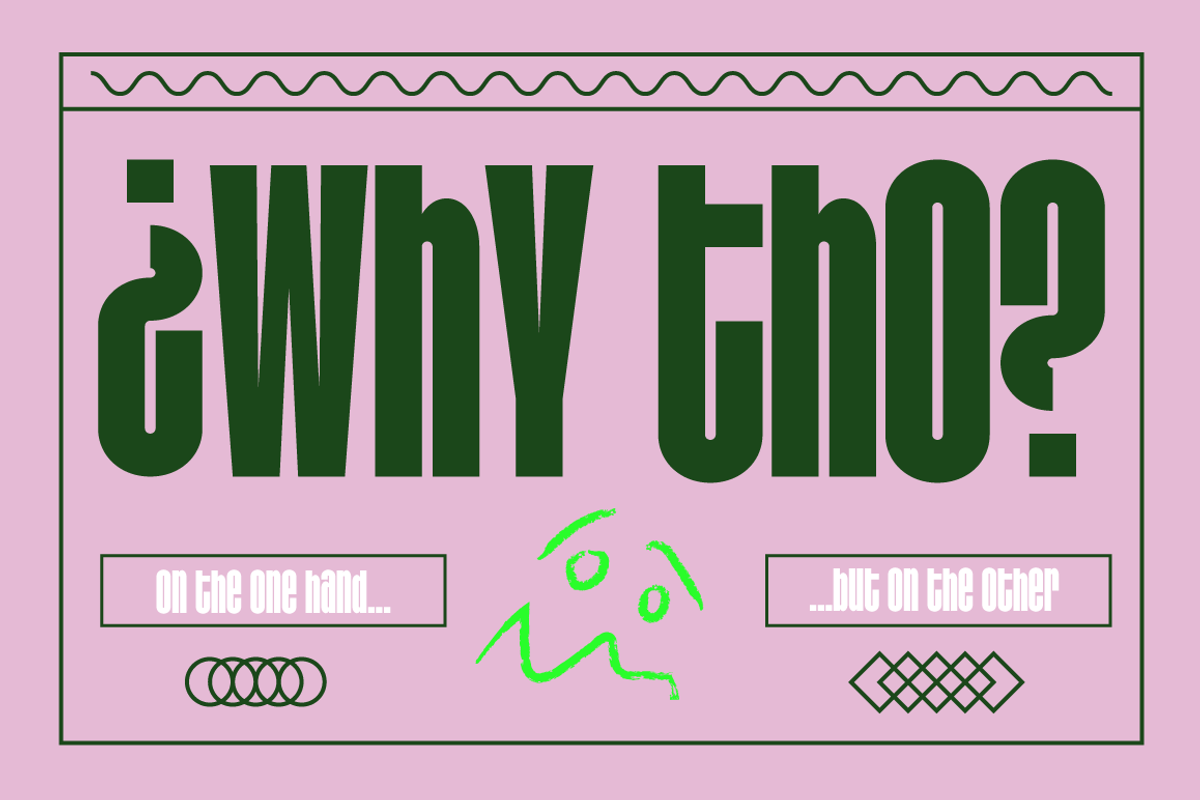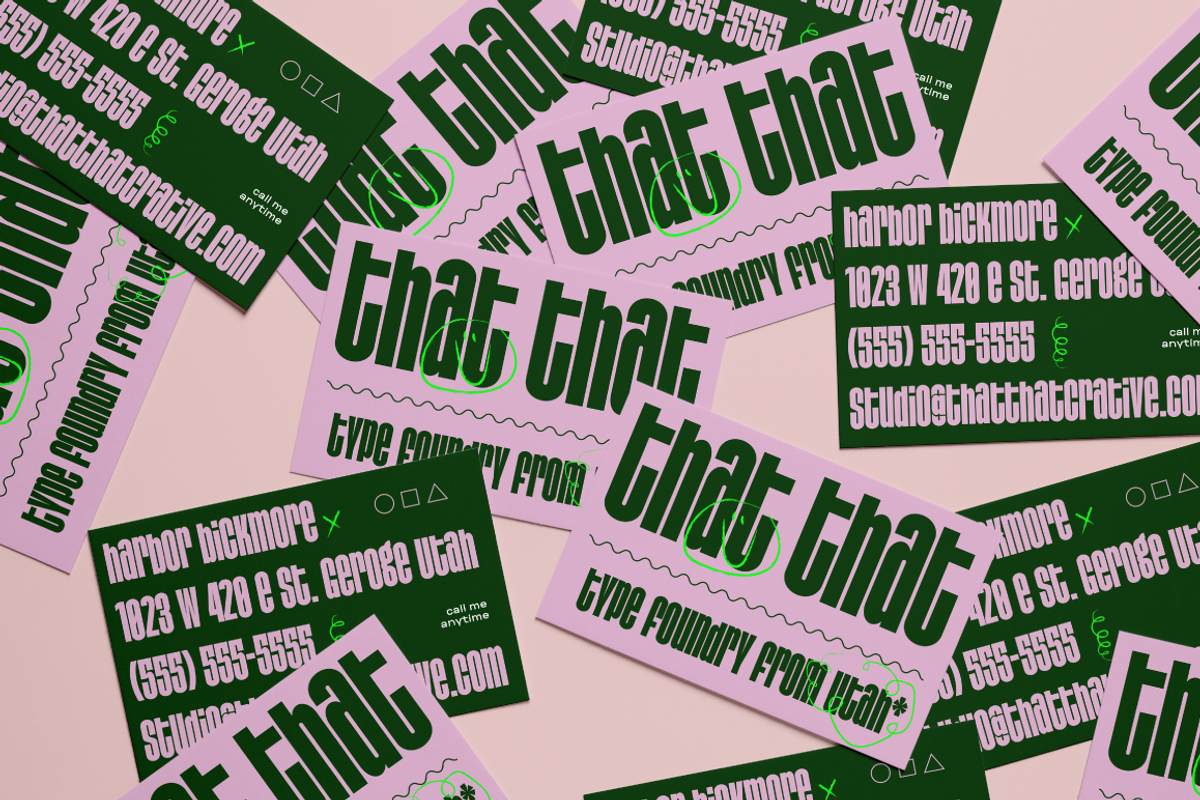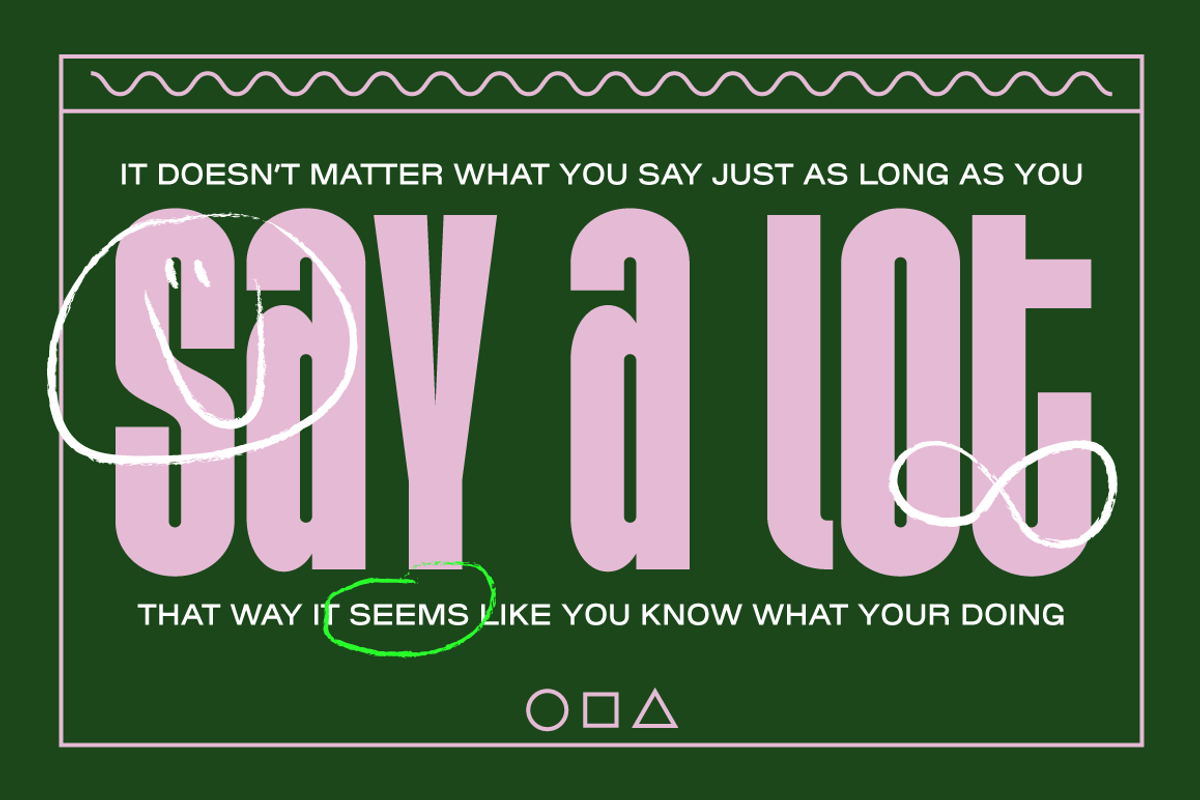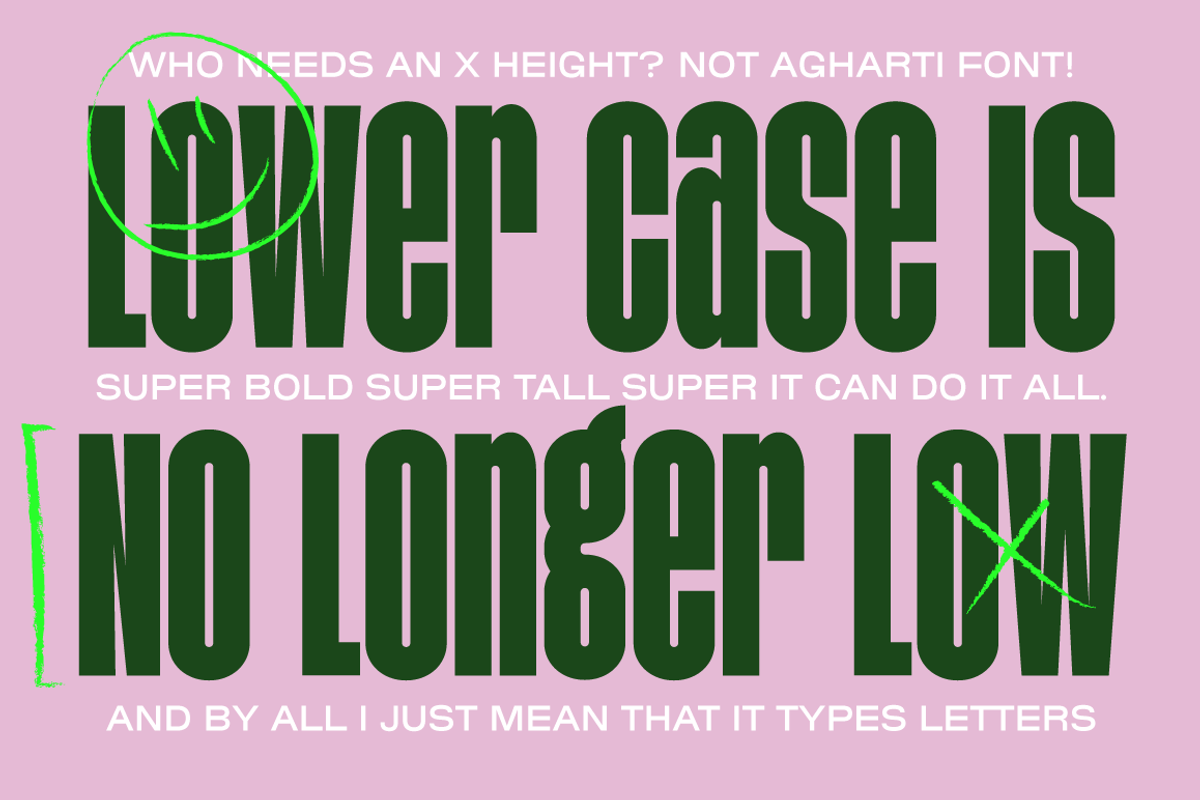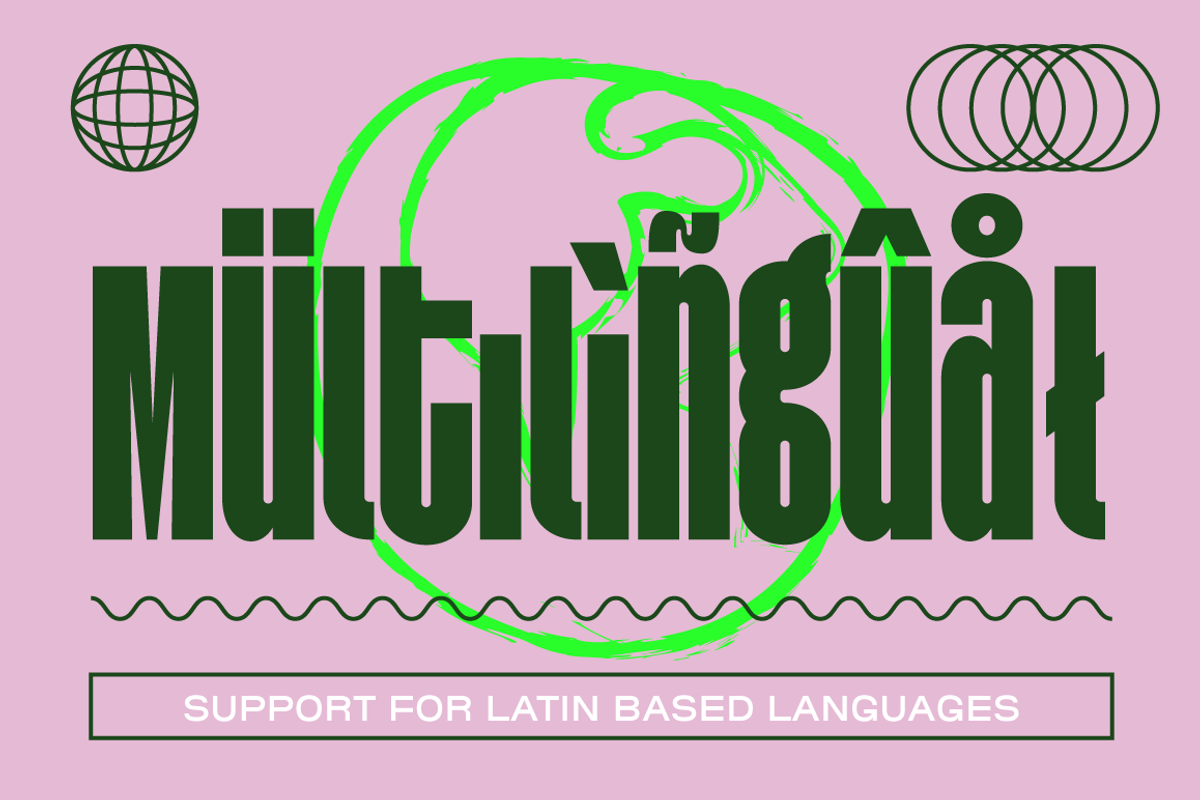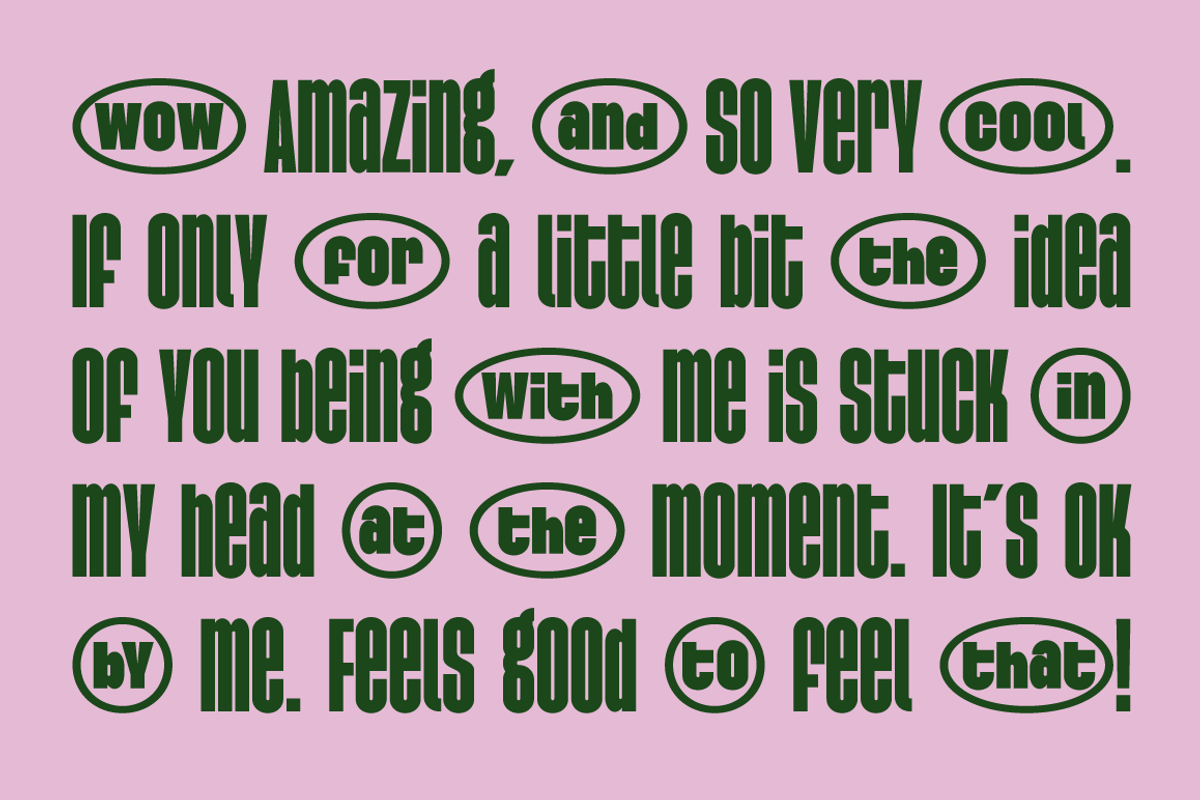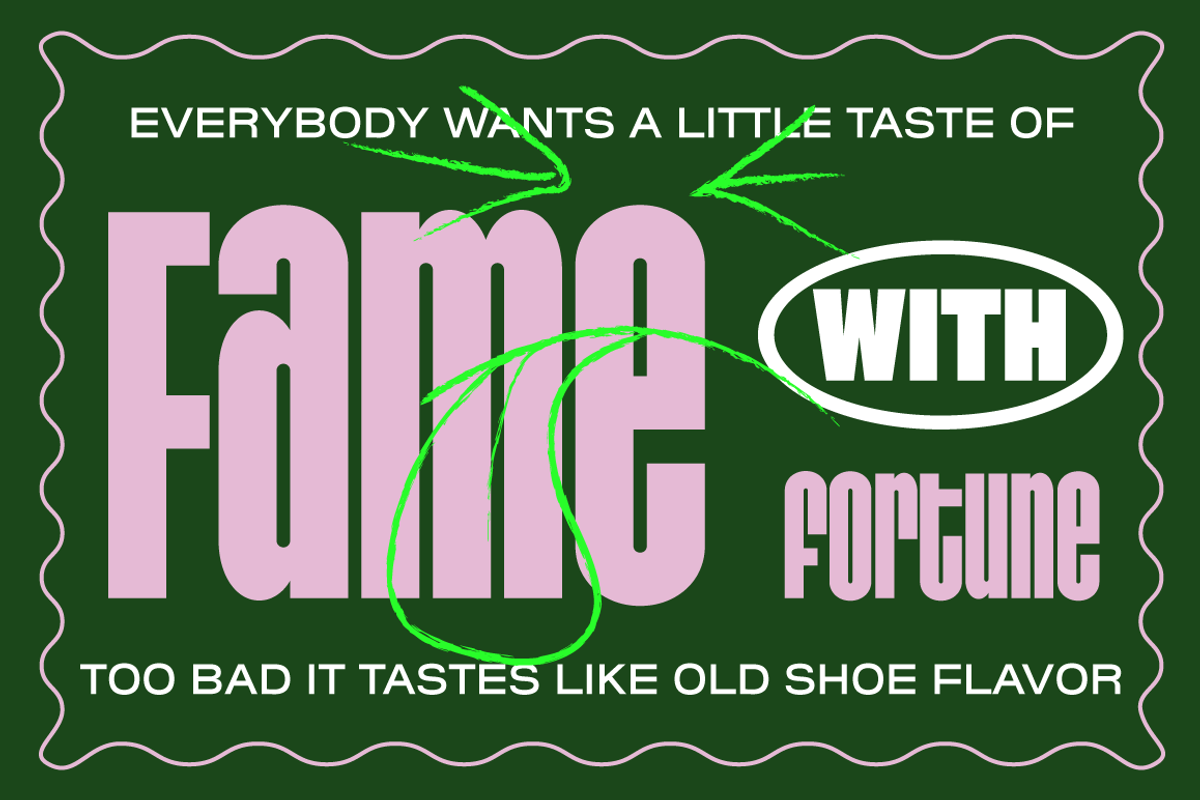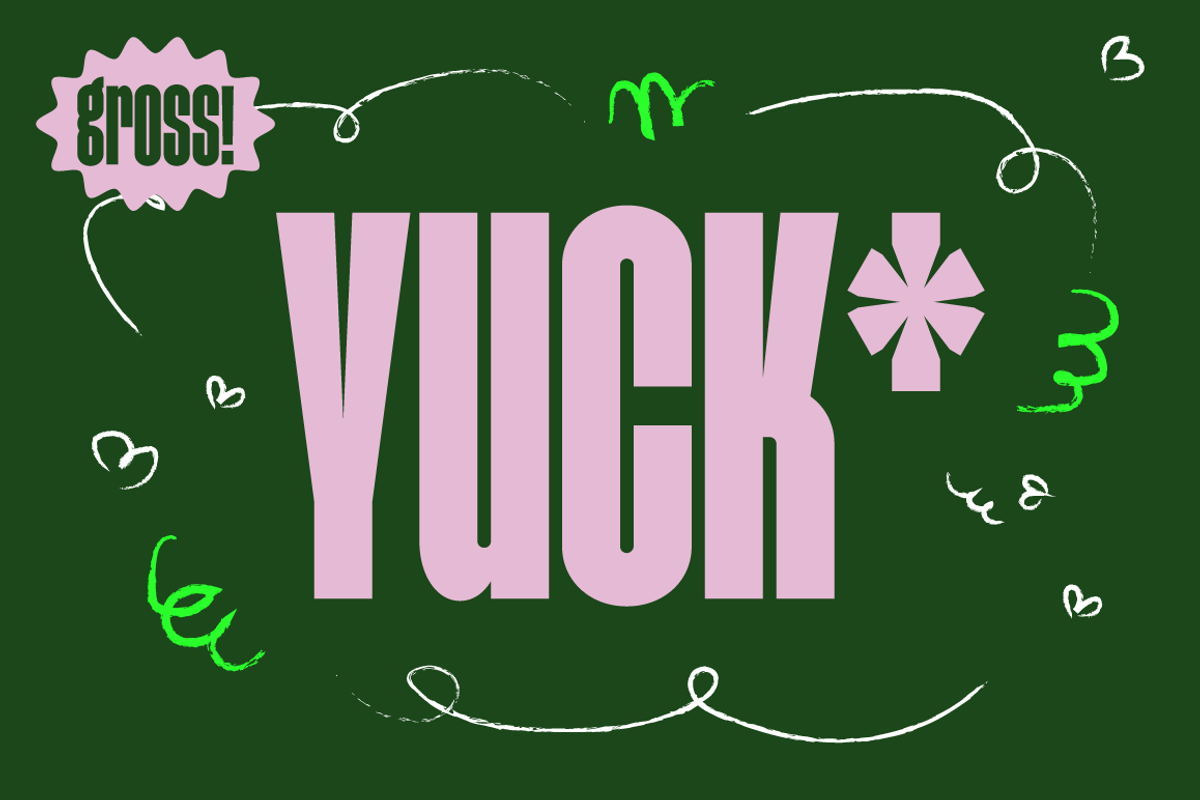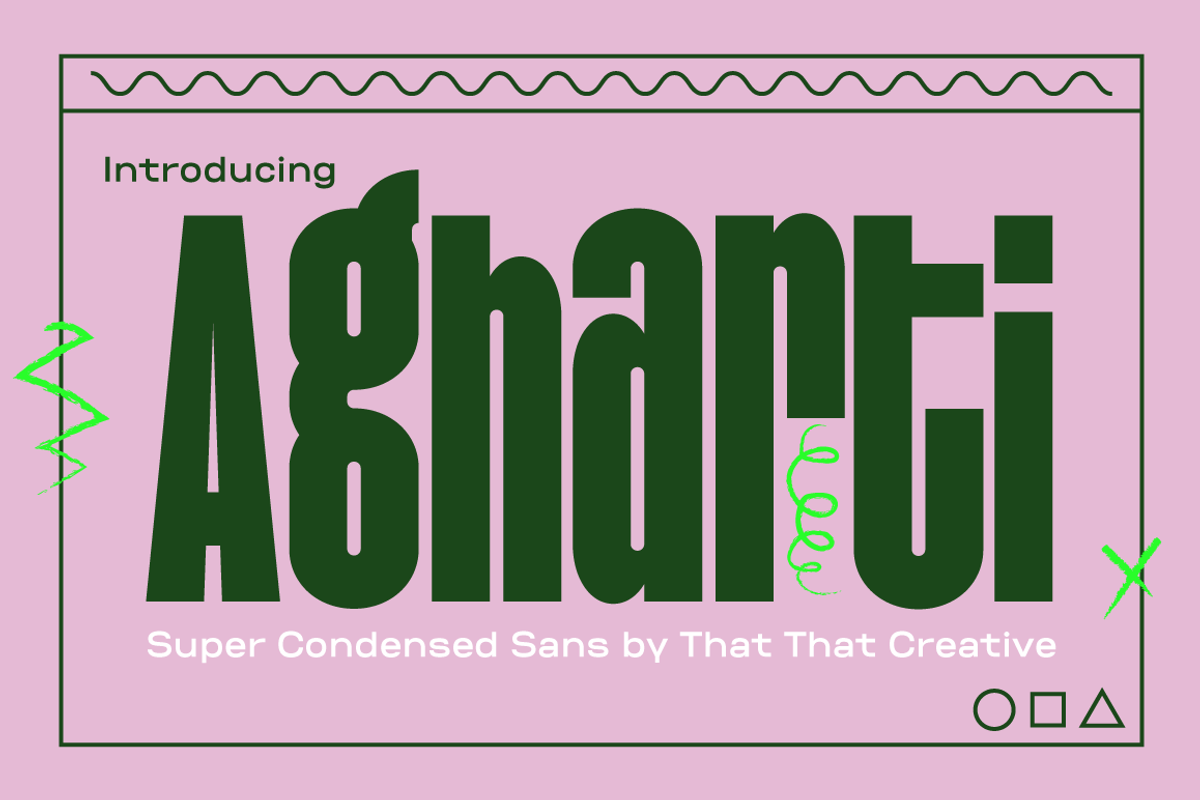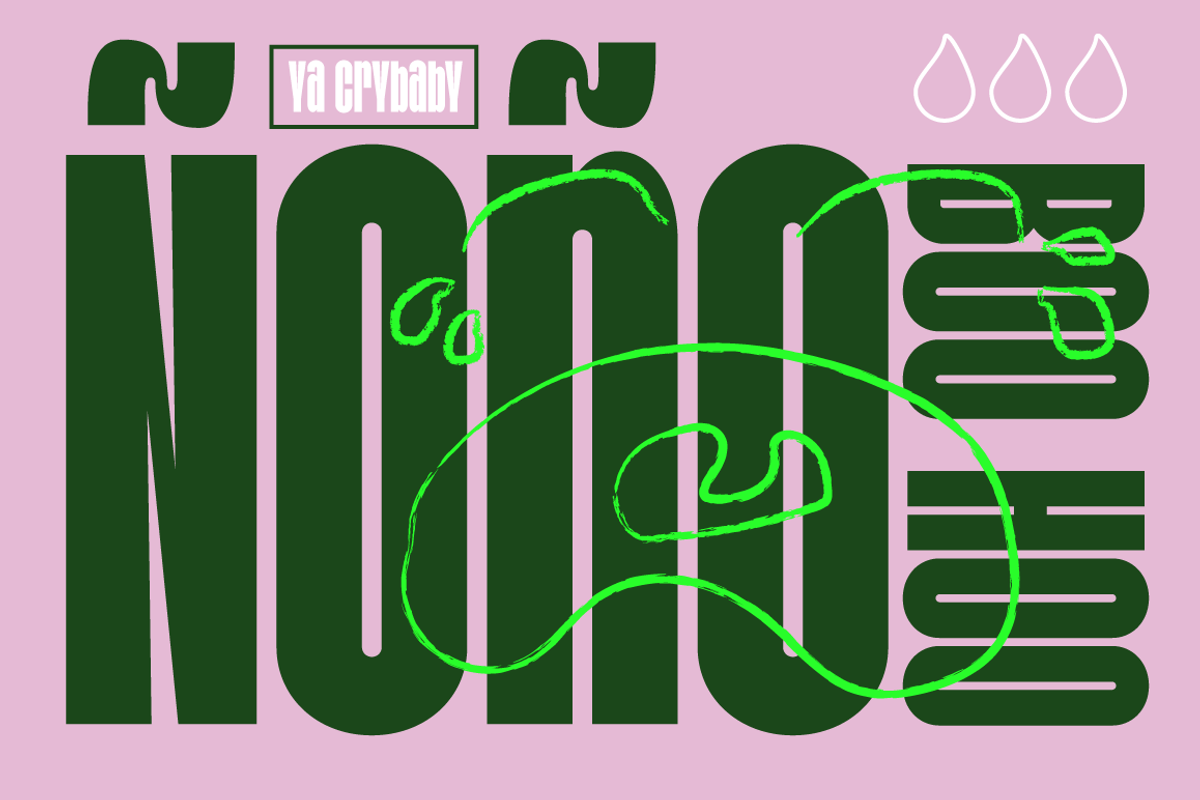
Agharti - Bold Display Font
Agharti is a bold Condensed Display font that features lowercase letters that reach the cap height. It will give more personality to your bold headlines being able to use lower case characters without sacrificing a strong even presence. Perfect for a modern logo, contemporary web design, or print headlines.
- Over 240 glyphs
- Caps and Lowercase